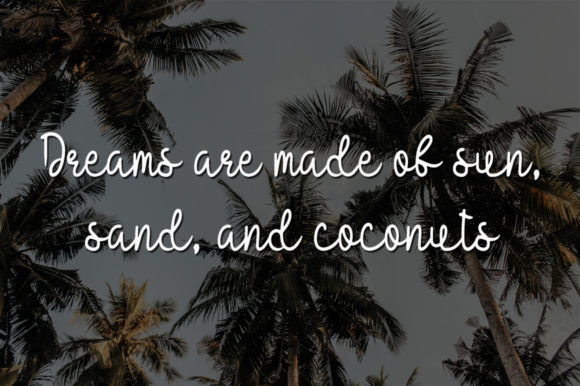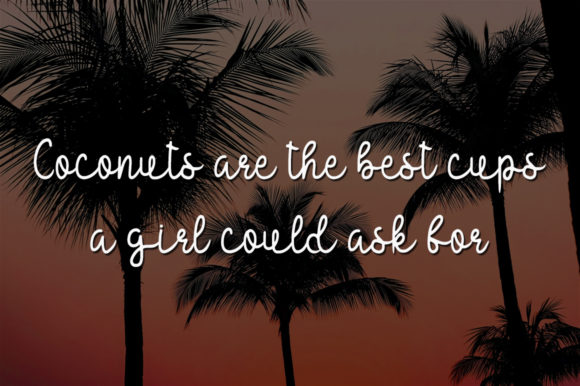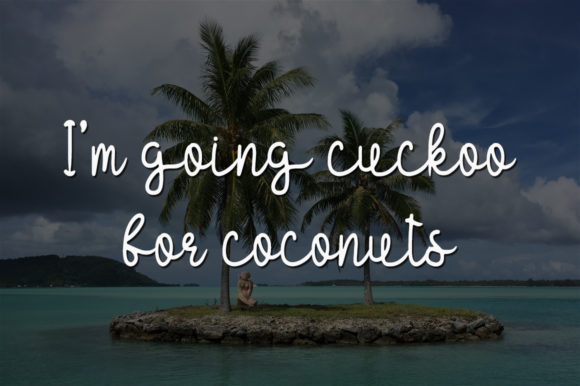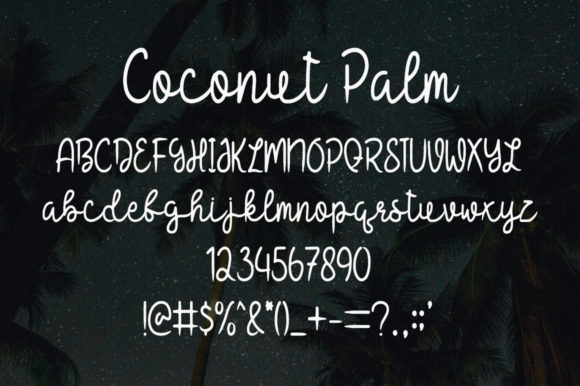
Discover the Sweet Charm of the Coconut Palm Font
As a designer, there’s nothing quite like that moment when you stumble upon the perfect font to elevate your project. The words start flowing, and your creativity takes off like a wildflower blooming in the sun. For me, that moment came when I discovered the Coconut Palm Font. Its delicate, handwritten style is a breath of fresh air in the world of typography.
The Coconut Palm Font is a masterpiece of design, with its rounded letters and gentle curves that seem to dance across the page. It’s perfect for creating beautiful, eye-catching designs that capture the essence of a brand or product. Whether you’re a seasoned designer or just starting out, this font is a valuable addition to your toolkit.
Coconut Palm Font Key Features
- Unique Characteristics: Coconut Palm Font features a unique blend of modern and traditional elements, with a distinctive palm tree-inspired design that adds a touch of tropical elegance to any design.
Designer Review: Coconut Palm Font
At first glance, the Coconut Palm Font caught my attention with its unique, tropical feel. The font has a relaxed, casual vibe that’s perfect for projects that need a touch of laid-back charm. ✨ I appreciate how the font designer has managed to capture the essence of the palm tree in its letterforms, creating a distinctive and memorable visual identity.
Some of the strengths of the Coconut Palm Font include:
- ✨ Playful personality: The font has a fun, carefree spirit that’s sure to add some personality to any project.
- ✨ High legibility: Despite its unique style, the font is surprisingly easy to read, making it suitable for body text as well as headings.
- ✨ Wide character set: The font includes a wide range of characters, including numbers, punctuation, and special characters.
- ⚠️ Limited versatility: While the font is perfect for tropical-themed projects, it may not be the best choice for more formal or corporate designs.
- ⚠️ Lack of bold weights: The font is currently only available in regular and italic weights, which may limit its use in certain contexts.
Overall, I think the Coconut Palm Font is a great choice for projects that need a fun, laid-back vibe. While it may have some limitations, its unique personality and high legibility make it a great addition to any designer’s toolkit.
Coconut Palm Font: A Practical Application Guide
Tip: Use the Coconut Palm Font for titles and headings to add a touch of tropical flair to your designs.
Tip: Use the Coconut Palm Font in combination with tropical-themed graphics and colors to create a cohesive look.
Tip: Use the Coconut Palm Font for headings and titles to add a touch of elegance to your presentations and documents.
The Coconut Palm Font is perfect for:
- Tropical-themed designs and branding.
- Beach and resort websites and marketing materials.
- Summer and vacation-themed events and parties.
Remember to use the Coconut Palm Font in moderation and in combination with other design elements to create a cohesive and visually appealing look.
Alternatives to Coconut Palm Font
Caslon Font
Caslon is a classic serif font that is reminiscent of traditional book typography. It is suitable for use in documents that require a sense of elegance and sophistication. When to use: formal documents, business reports, and literature.
Compared to Coconut Palm Font, Caslon has a more formal and traditional feel, whereas Coconut Palm Font is more playful and tropical. Caslon is better suited for formal writing, while Coconut Palm Font is ideal for creative and casual projects.